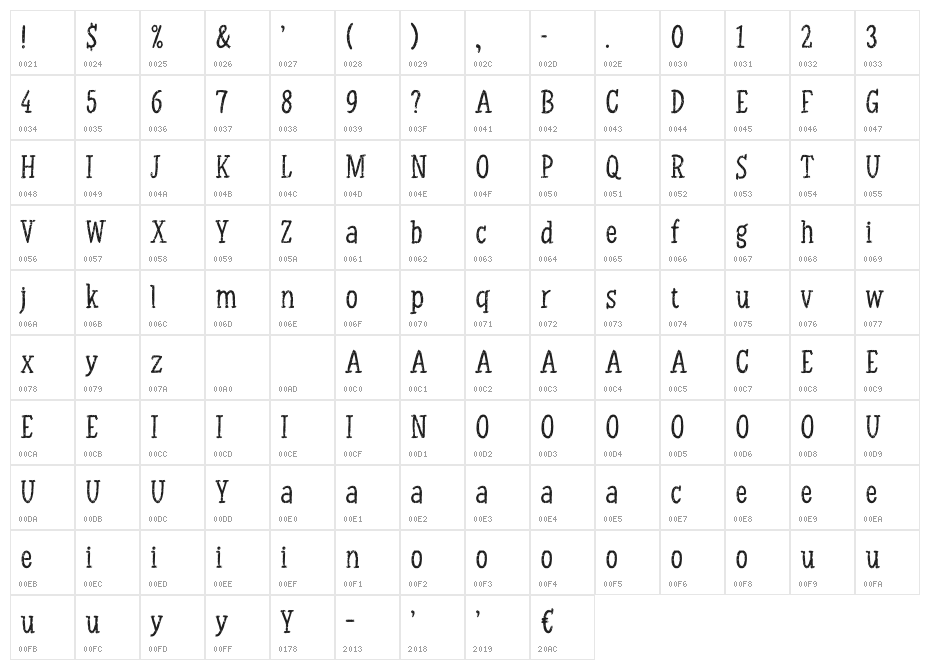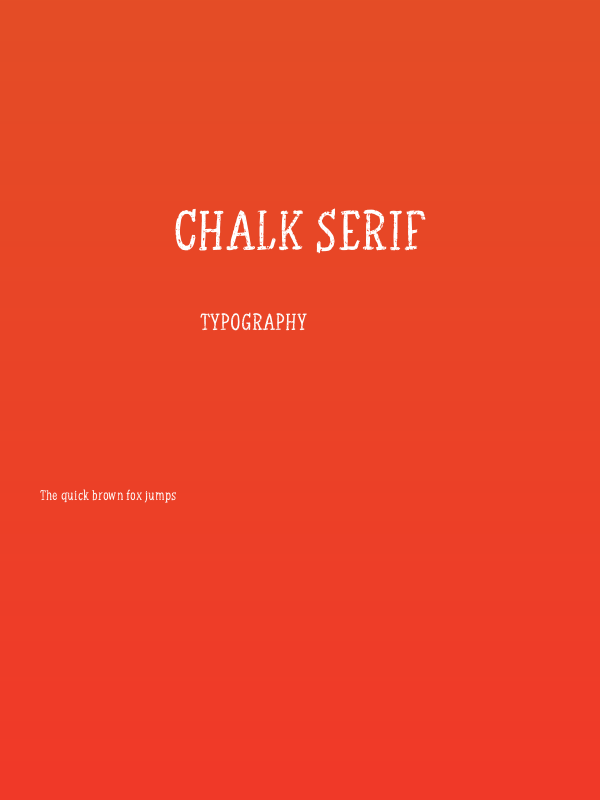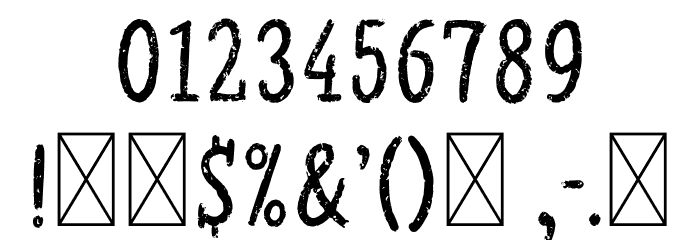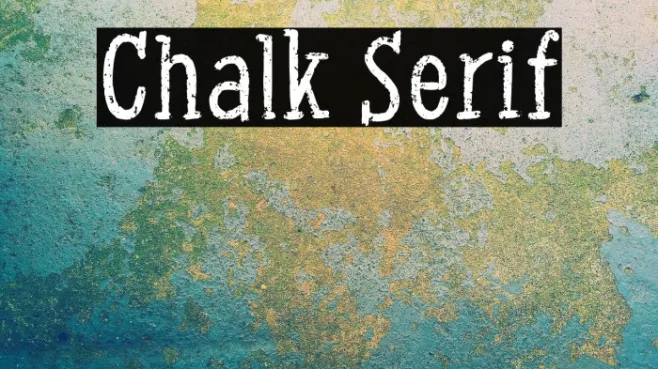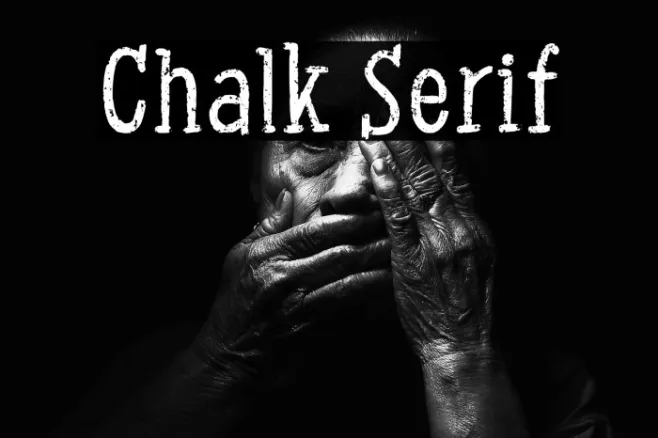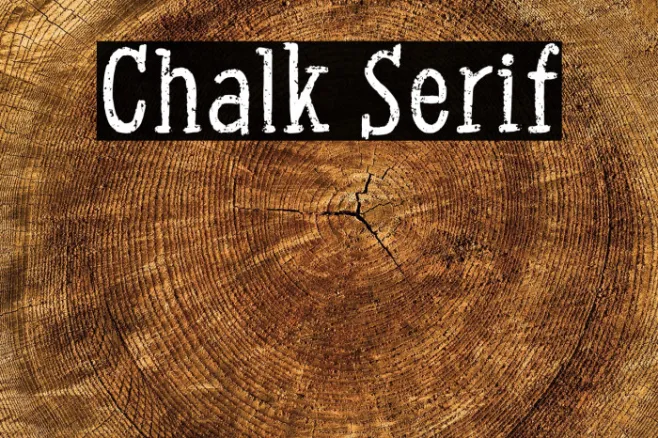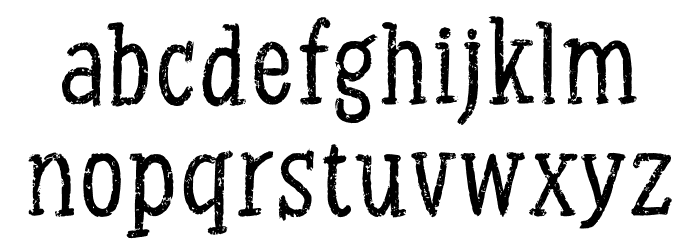
Chalk Serif Font
Chalk Serif Description
This font features a textured, chalk-like appearance that gives it a rustic and handcrafted feel. The serif style adds a touch of classic elegance, while the distressed texture provides a casual and approachable vibe. The uppercase and lowercase letters maintain a consistent style, with slightly rounded edges and a uniform stroke width. Numbers and special characters are designed to match the overall aesthetic, making them suitable for a variety of creative applications. The font's unique texture makes it stand out, ideal for projects that require a personal and artistic touch.
| Use Case | Headlines, Logos, Artistic projects |
| Proposed Projects | Ideal for cafe menus, chalkboard signs, rustic wedding invitations, and artistic posters. |